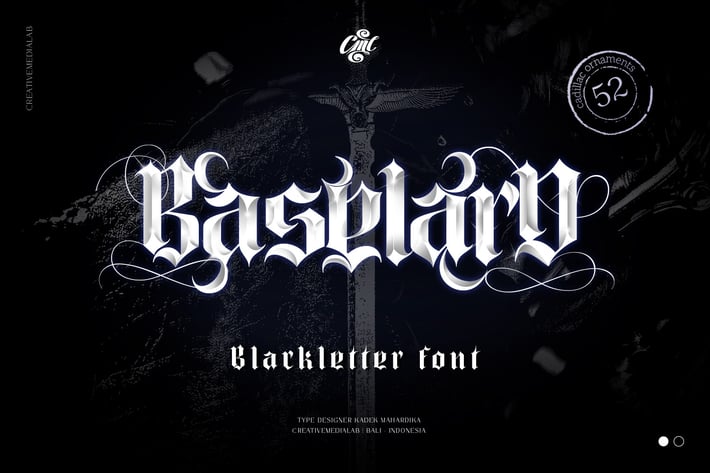
Baselard Font
Introducing Baselard a gothic calligraphy font with tons of ligatures, and a set of 52 matching ornaments packed into font, Baselard works well in Logo, poster, title, header, clothing and many more. The set of matching ornaments is perfect to add a touch of beauty to any design.